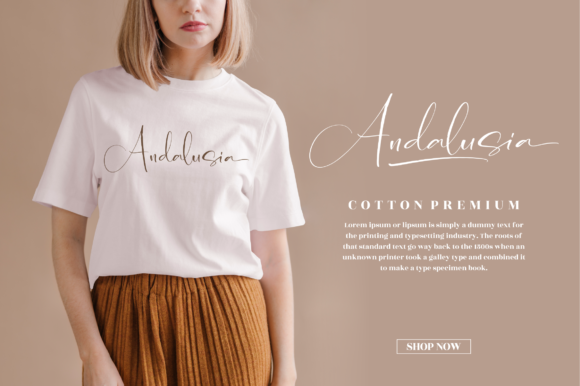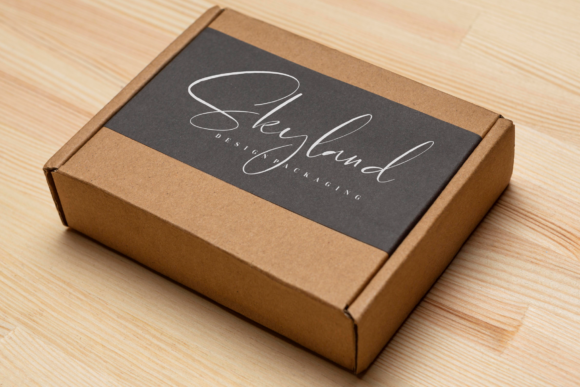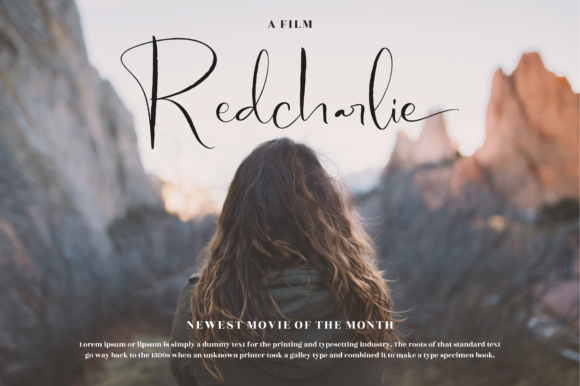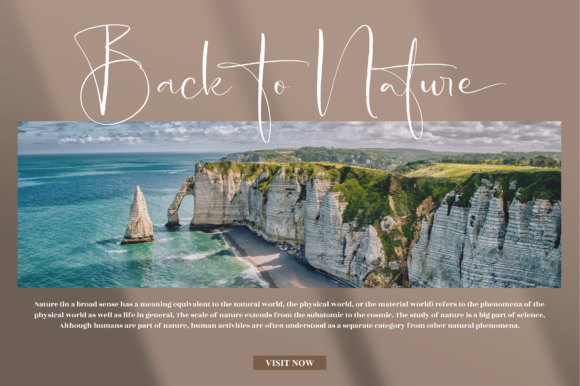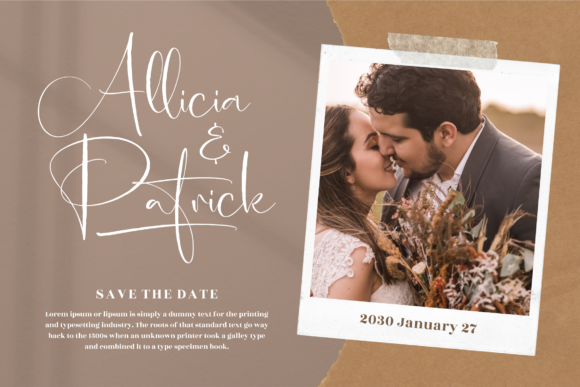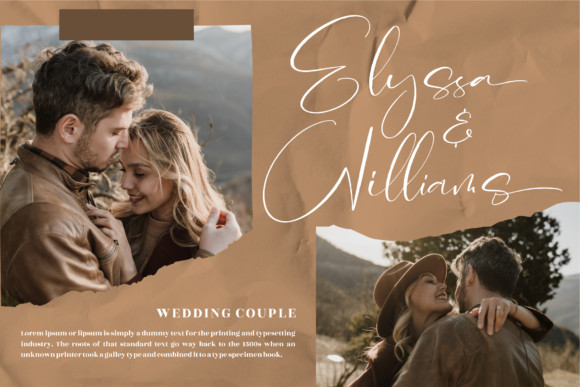
The Perfect Combination of Class and Creativity
There’s something magical about sitting at your desk, surrounded by scraps of paper, scribbled notes, and half-empty cups of coffee. The moment when a design concept clicks, and everything falls into place. This is where the Andalusia Signature Font comes in – a true game-changer for designers seeking to elevate their work.
This exquisite handwritten font masterfully blends classy calligraphic influences with a fresh, contemporary feel. Whether you’re crafting invitations, designing a logo, or creating a brand identity, the Andalusia Signature Font is sure to leave a lasting impression. With its PUA encoding, you’ll have access to all the glyphs and swashes you need to bring your designs to life.
For designers, the Andalusia Signature Font is more than just a font – it’s a tool for expressing creativity and personality. By incorporating this beautiful font into your work, you’ll be able to convey a sense of elegance and sophistication that’s hard to achieve with more traditional fonts.
Andalusia Signature Font Key Features
- Font Family: Andalusia Signature Font, a high-end script font with elegant and sophisticated feel.
- Character Count: 700+ glyphs, including Latin, Cyrillic, and Greek alphabets, as well as various symbols and ornaments.
- Unique Characteristics: Distinctive swashes, flourishes, and ligatures that add a touch of luxury and sophistication to any design.
Andalusia Signature Font Review
I’ve had the pleasure of working with the Andalusia Signature Font, and I must say it’s a beautiful script font. ✨ The elegant, cursive design makes it perfect for adding a touch of sophistication to your designs. From invitations to branding materials, Andalusia Signature Font is sure to make a lasting impression.
One of the standout features of this font is its versatility. ✨ It’s suitable for both digital and print media, making it a great choice for designers who need to adapt to different formats. Additionally, the font’s high-quality design ensures that it looks great at various font sizes and styles.
- ⚠️ Limited character set: The Andalusia Signature Font only includes uppercase and lowercase letters, with no support for special characters or numbers.
- ⚠️ Not ideal for body text: Due to its script design, the font may not be the best choice for large blocks of text, as it can be difficult to read.
Overall, I’m impressed with the Andalusia Signature Font. While it has some limitations, its elegant design and versatility make it a valuable addition to any designer’s toolkit. If you’re looking to add a touch of sophistication to your designs, Andalusia Signature Font is definitely worth considering.
Use the Andalusia Signature Font to add a touch of elegance and sophistication to your designs.
Pair it with complementary colors and fonts to create a unique and visually appealing look.
Experiment with different font sizes and styles to add emphasis and hierarchy to your content.
Use the Andalusia Signature Font for:
Branding and logos
Business cards and letterheads
Special occasion graphics and designs